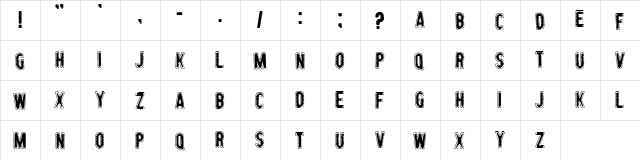
Emergency Exit Regular
| Foundry | Fr餩ric Rich |
| Designer | Fr餩ric Rich |
Design Context for Emergency Exit Typeface
Emergency Exit is a composed and adaptable typeface that performs quietly and consistently across a wide range of design contexts.